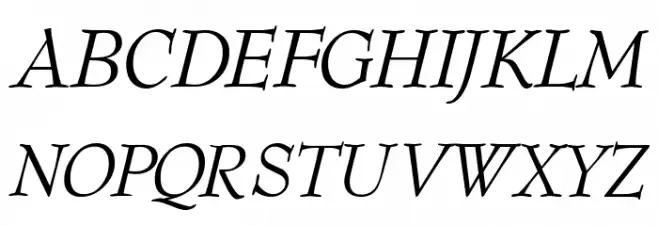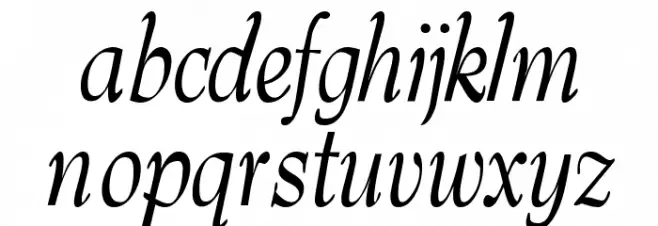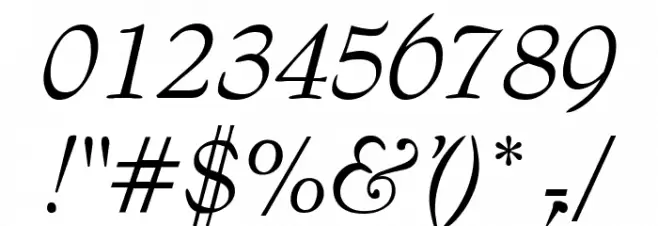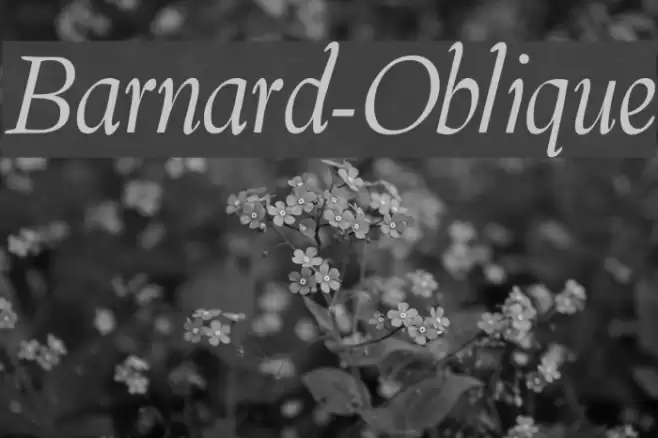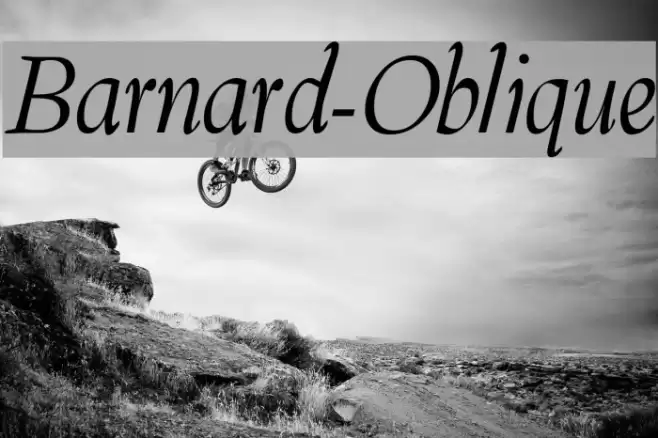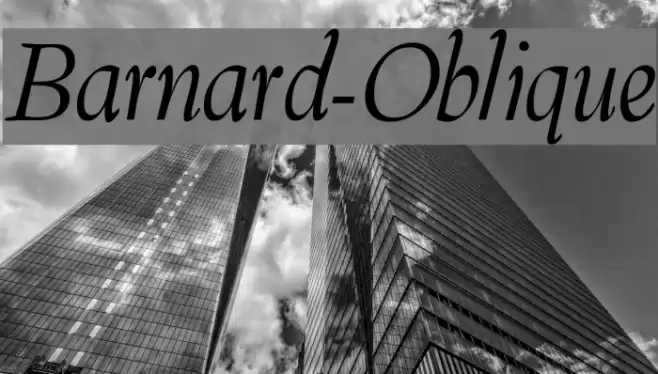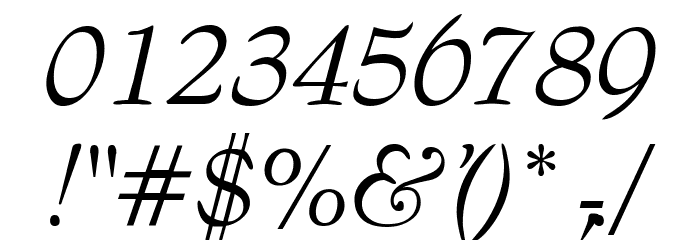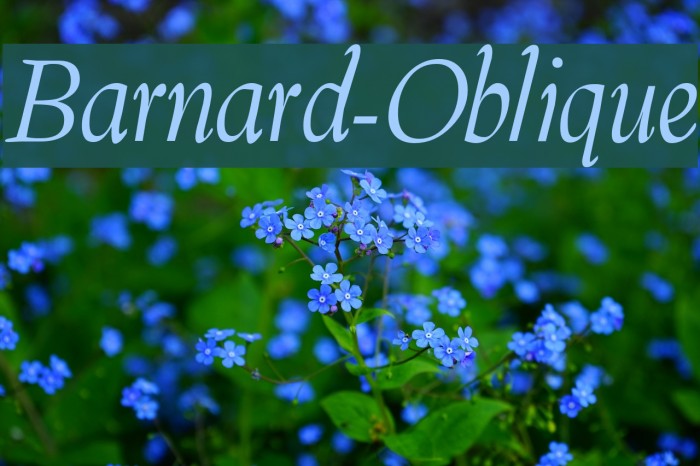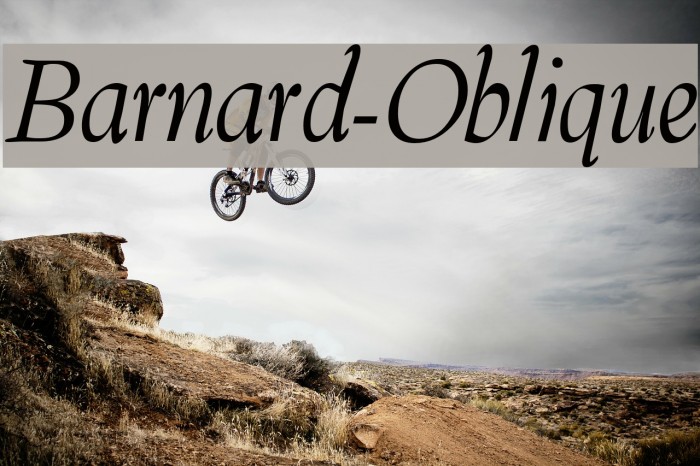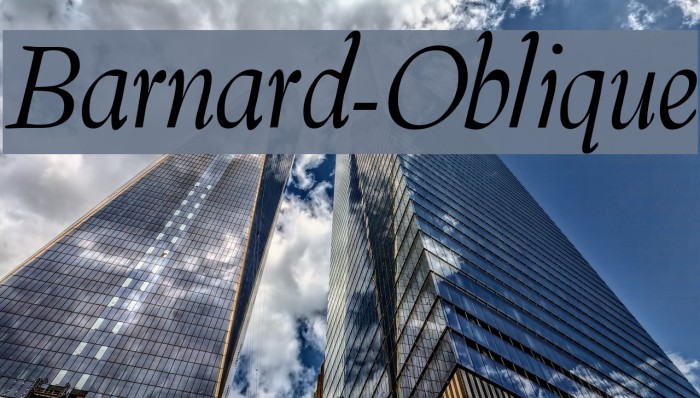
Barnard-Oblique
This font features an elegant and sophisticated oblique style, characterized by its slanted letters that convey a sense of motion and dynamism. The strokes are smooth and fluid, with a moderate contrast between thick and thin lines, adding a touch of refinement. The uppercase letters are bold and commanding, while the lowercase letters maintain a graceful flow. The numerals are clear and distinct, ensuring readability. Special characters are well-integrated, maintaining the overall aesthetic. This font is suitable for projects that require a touch of elegance and sophistication.
An elegant oblique font with smooth, fluid strokes and moderate contrast.
- Proposed Projects: Ideal for wedding invitations, luxury branding, fashion magazines, and elegant signage.
- Category: Script
- Overall Style: Elegant
- Use Case: Headlines, Logos, Invitations